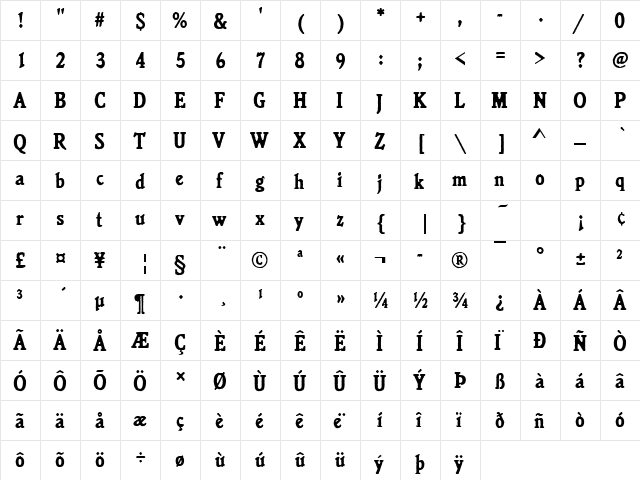
URWJanssonAntDBolCon Regular Font Preview
URWJanssonAntDBolCon Regular
Design Context for URWJanssonAntDBolCon Typeface
URWJanssonAntDBolCon offers clean, dependable letterforms without strong stylistic allegiance, making it a practical choice for designers who need flexibility.